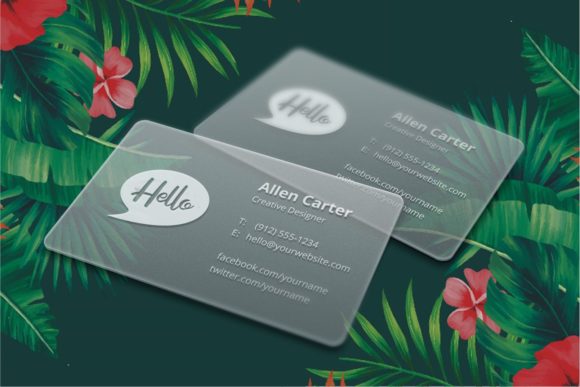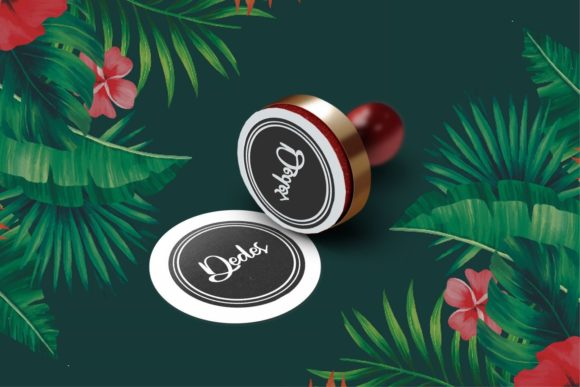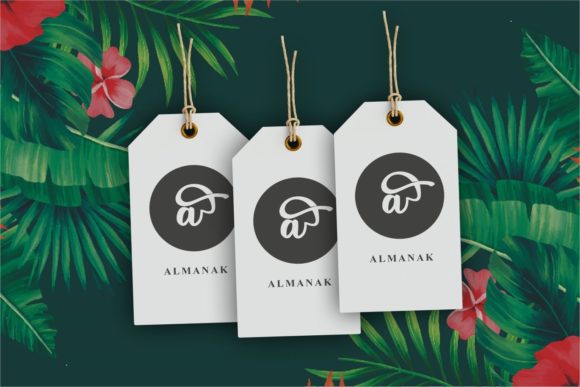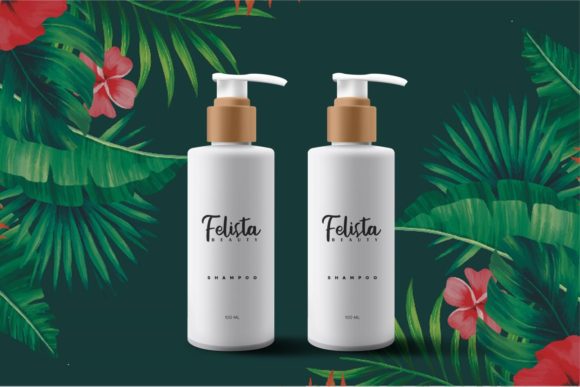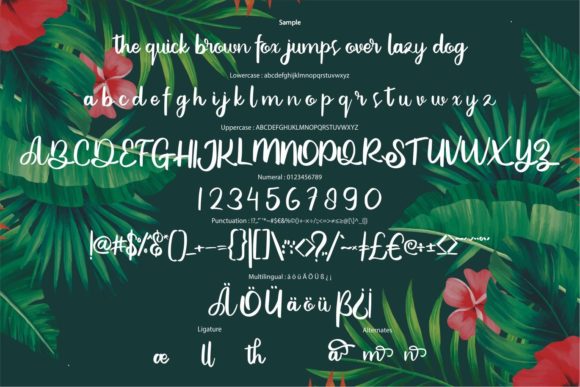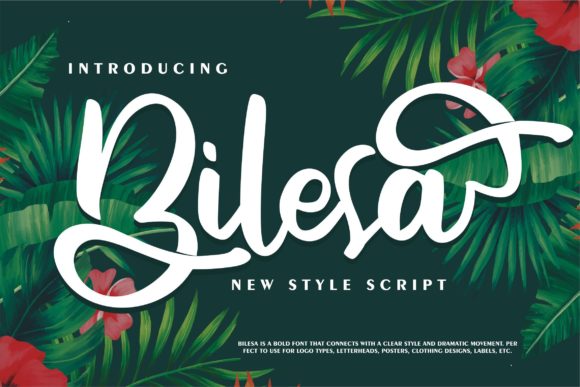
Bilesa Font: Adding a Sweet Touch to Your Designs
Are you looking for a fun and eye-catching script font to elevate your designs? Look no further than Bilesa Font! This versatile script font is perfect for a wide range of applications, from greeting cards to kids’ crafts, and is guaranteed to add a sweet touch to your next design.
What is Bilesa Font?
Bilesa Font is a unique and charming script font that is sure to capture the attention of your audience. Its playful and whimsical design makes it perfect for designs that require a touch of personality and fun. Whether you’re creating a greeting card, a kids’ craft, or a social media graphic, Bilesa Font is the perfect choice.
Key Features of Bilesa Font
So, what makes Bilesa Font so special? Here are some of its key features:
- Fun and eye-catching design: Bilesa Font has a unique and playful design that is sure to grab attention.
- Versatile: This script font can be used for a wide range of applications, from formal to informal designs.
- Sweet and charming: Bilesa Font has a sweet and charming personality that is perfect for designs that require a touch of whimsy.
- Easy to read: Despite its playful design, Bilesa Font is easy to read and understand, making it perfect for designs that require a clear message.
Uses of Bilesa Font
Bilesa Font is a versatile script font that can be used for a wide range of applications. Here are some ideas to get you started:
- Greeting cards: Add a personal touch to your greeting cards with Bilesa Font.
- Kids’ crafts: Bilesa Font is perfect for kids’ crafts, such as making posters, banners, and other creative projects.
- Social media graphics: Use Bilesa Font to create eye-catching social media graphics that are sure to grab attention.
- Party decorations: Create custom party decorations, such as banners and signs, with Bilesa Font.
- Branding and packaging: Use Bilesa Font to add a touch of personality to your branding and packaging designs.
Tips for Using Bilesa Font
Here are some tips for using Bilesa Font effectively in your designs:
- Use it sparingly: Bilesa Font is a bold and eye-catching font, so use it sparingly to avoid overwhelming your design.
- Pair it with other fonts: Pair Bilesa Font with other fonts to create a unique and interesting design.
- Experiment with colors: Bilesa Font looks great in a variety of colors, so experiment with different colors to find the perfect one for your design.
- Keep it simple: Don’t overcomplicate your design. Keep it simple and clean to let Bilesa Font shine.
Bilesa Font is a fun and eye-catching script font that is perfect for designers and crafters looking to add a sweet touch to their designs. Its versatile design makes it suitable for a wide range of applications, from greeting cards to kids’ crafts. With its key features, such as a fun and eye-catching design, versatility, and ease of reading, Bilesa Font is sure to become a favorite in your design toolkit. So, go ahead and get creative with Bilesa Font!
- What type of font is Bilesa Font?: Bilesa Font is a script font.